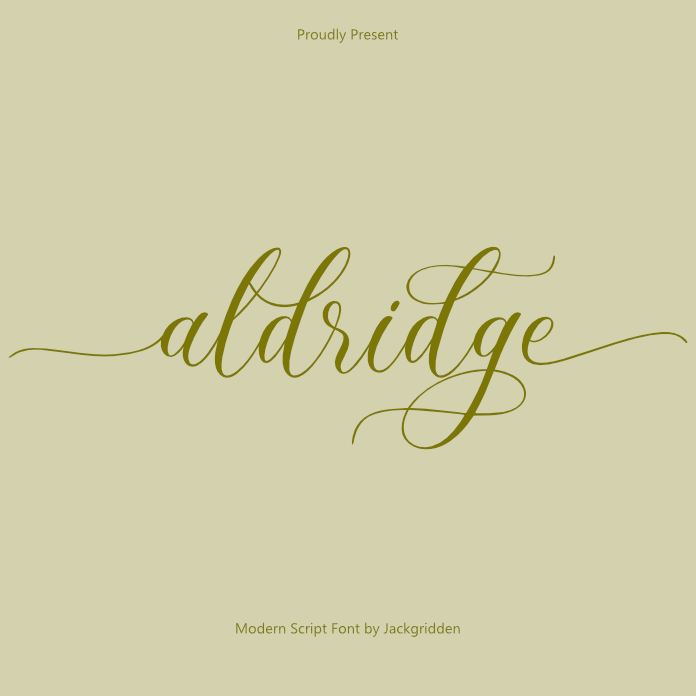
Aldridge is an elegant and sophisticated script font designed to bring charm and personality to your design projects. With a flowing, cursive style and a wide variety of stylistic alternates and ligatures, Aldridge offers endless creative possibilities for both personal and professional use.
Whether you’re working on wedding invitations, logos, branding, or social media graphics, Aldridge’s smooth, fluid strokes will add a touch of refinement to your design. The carefully crafted alternates give you the flexibility to experiment with different letterforms, while the ligatures ensure a harmonious, natural flow in every word.